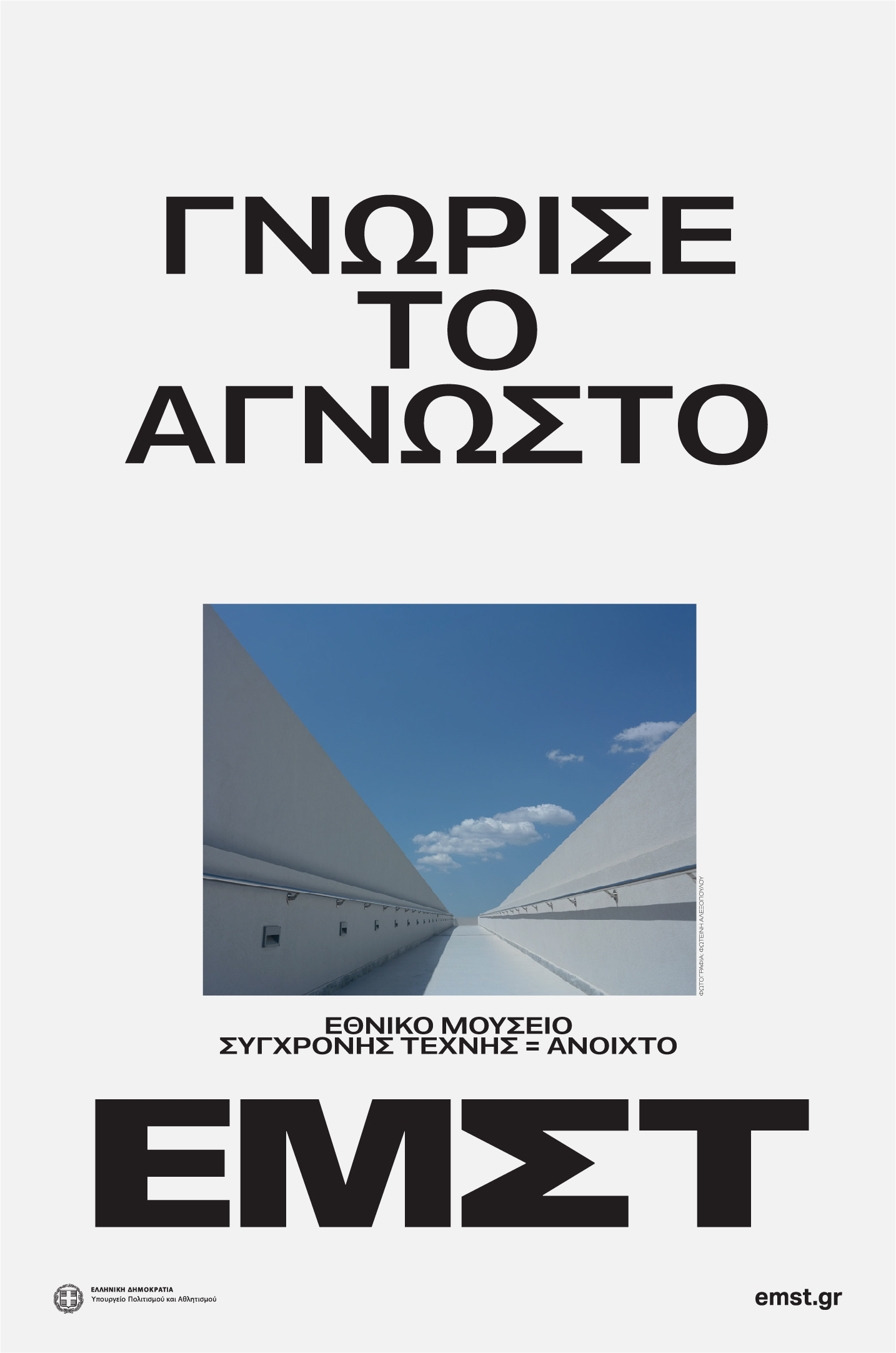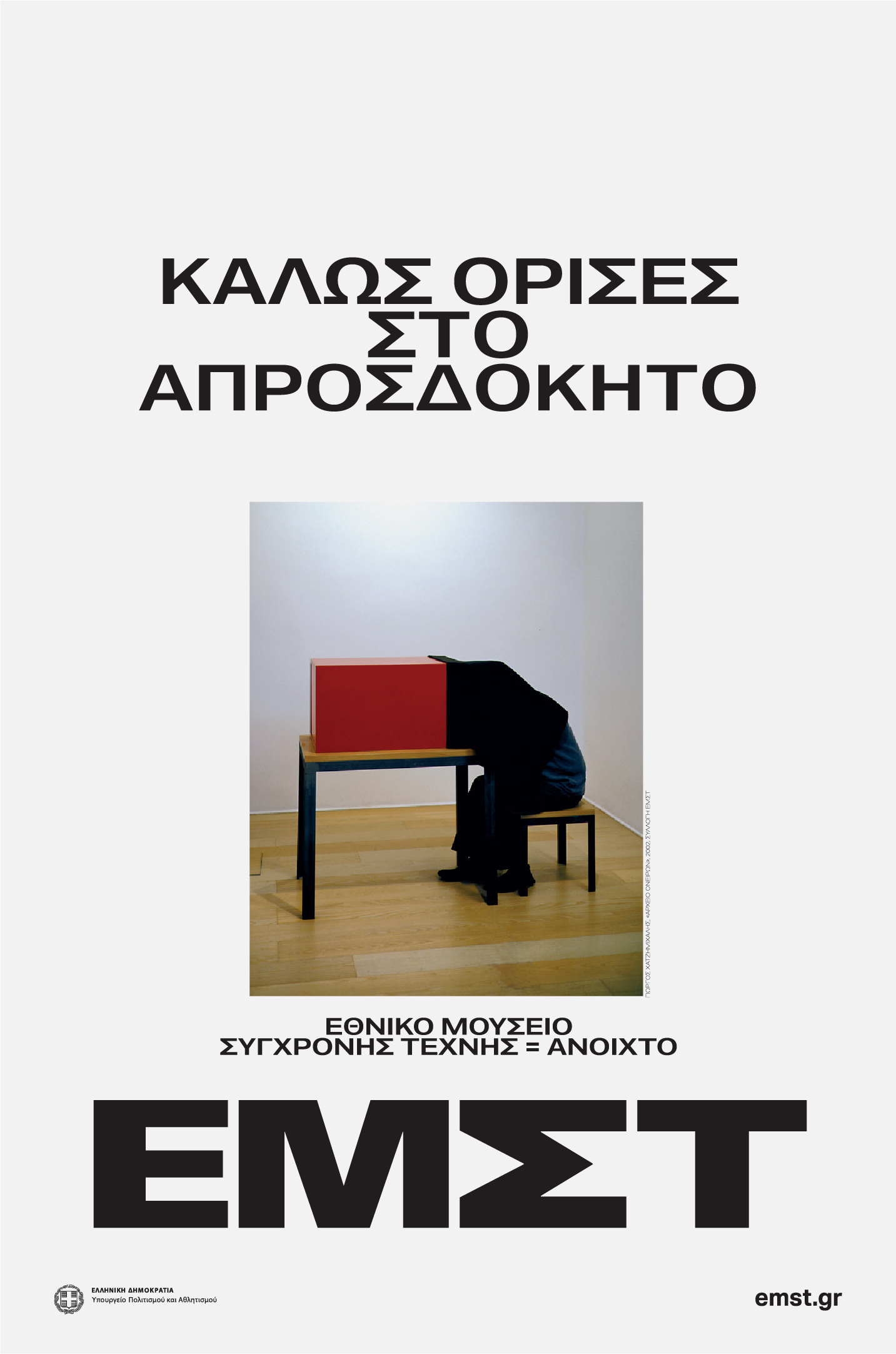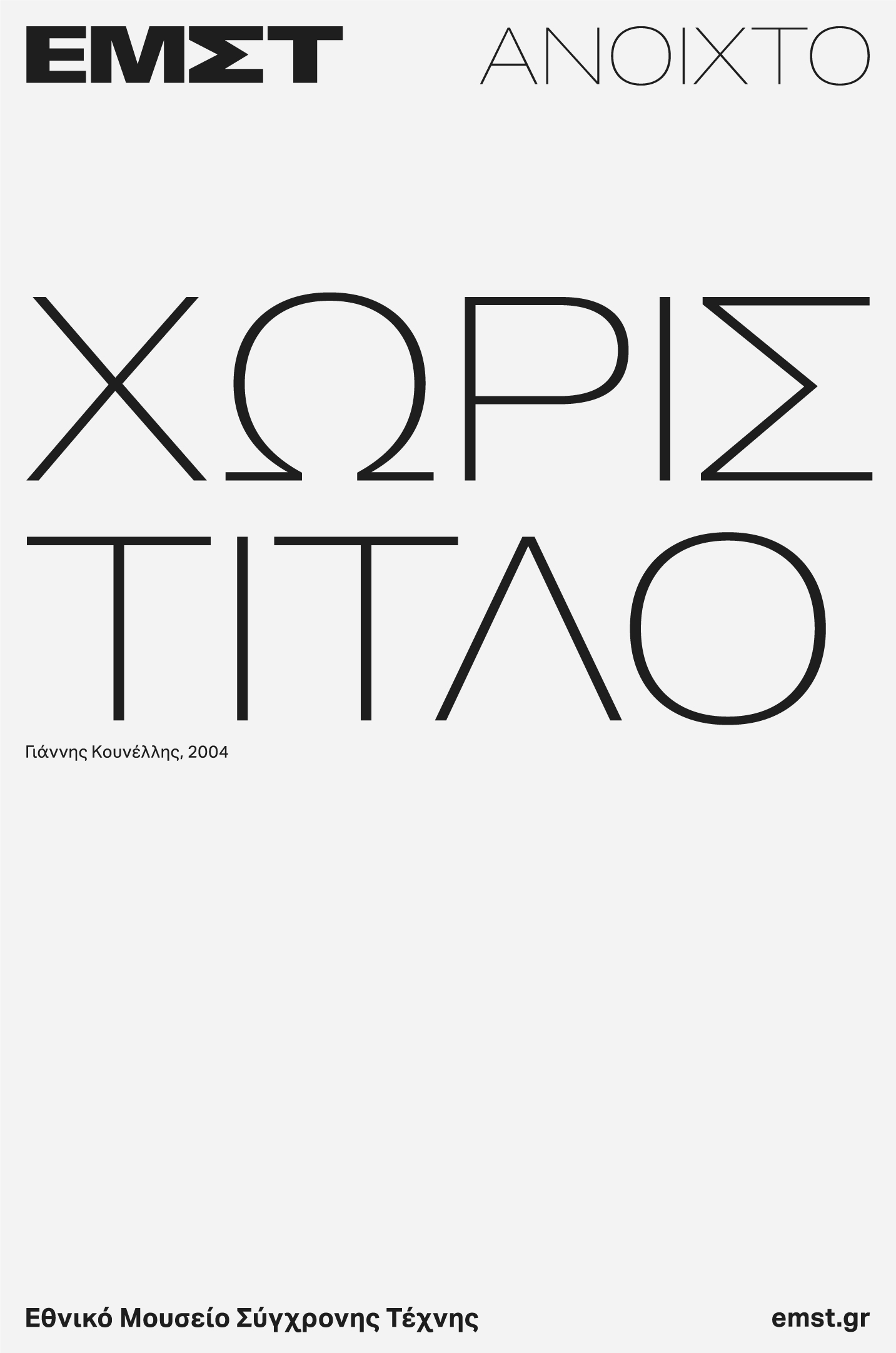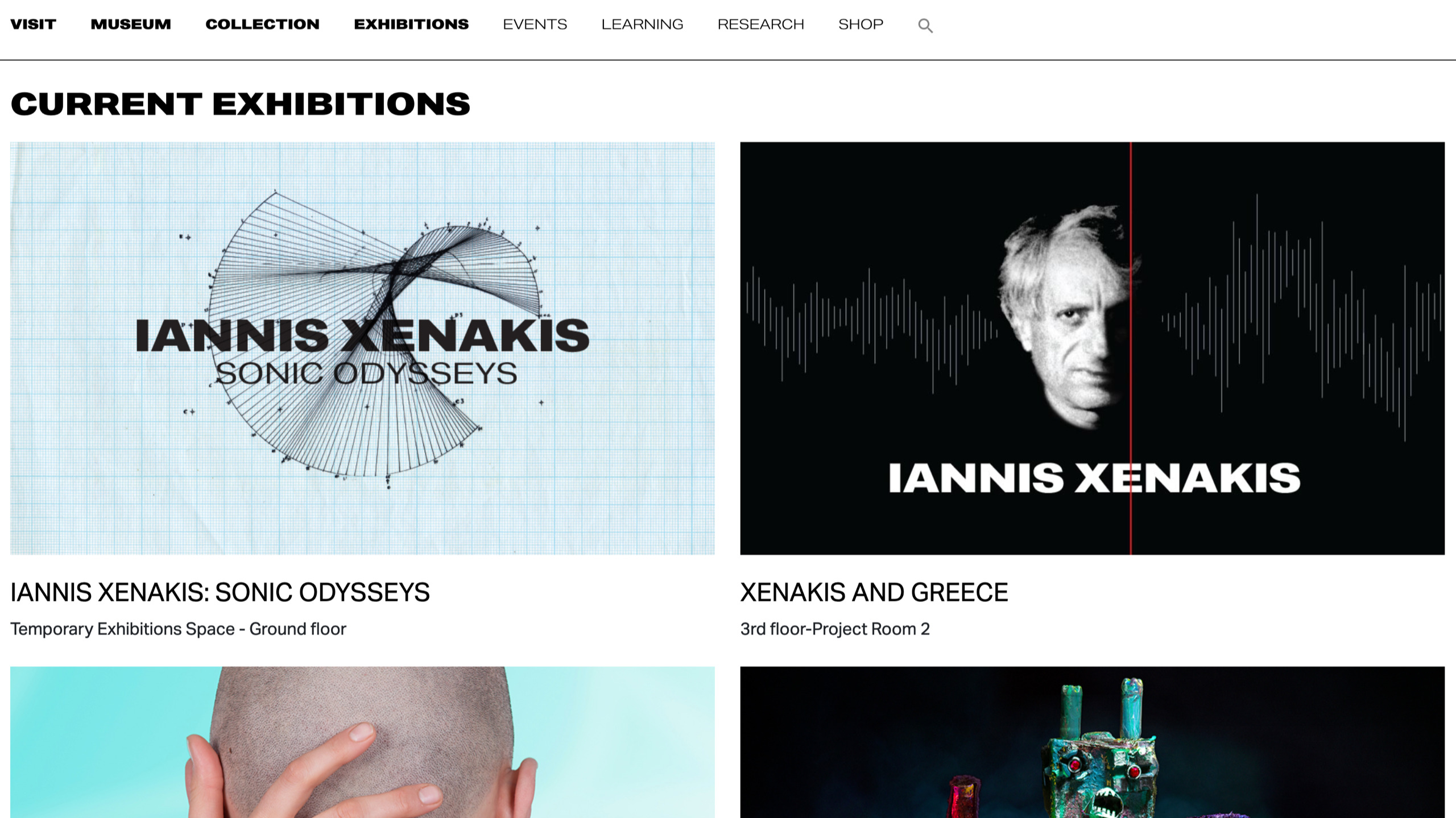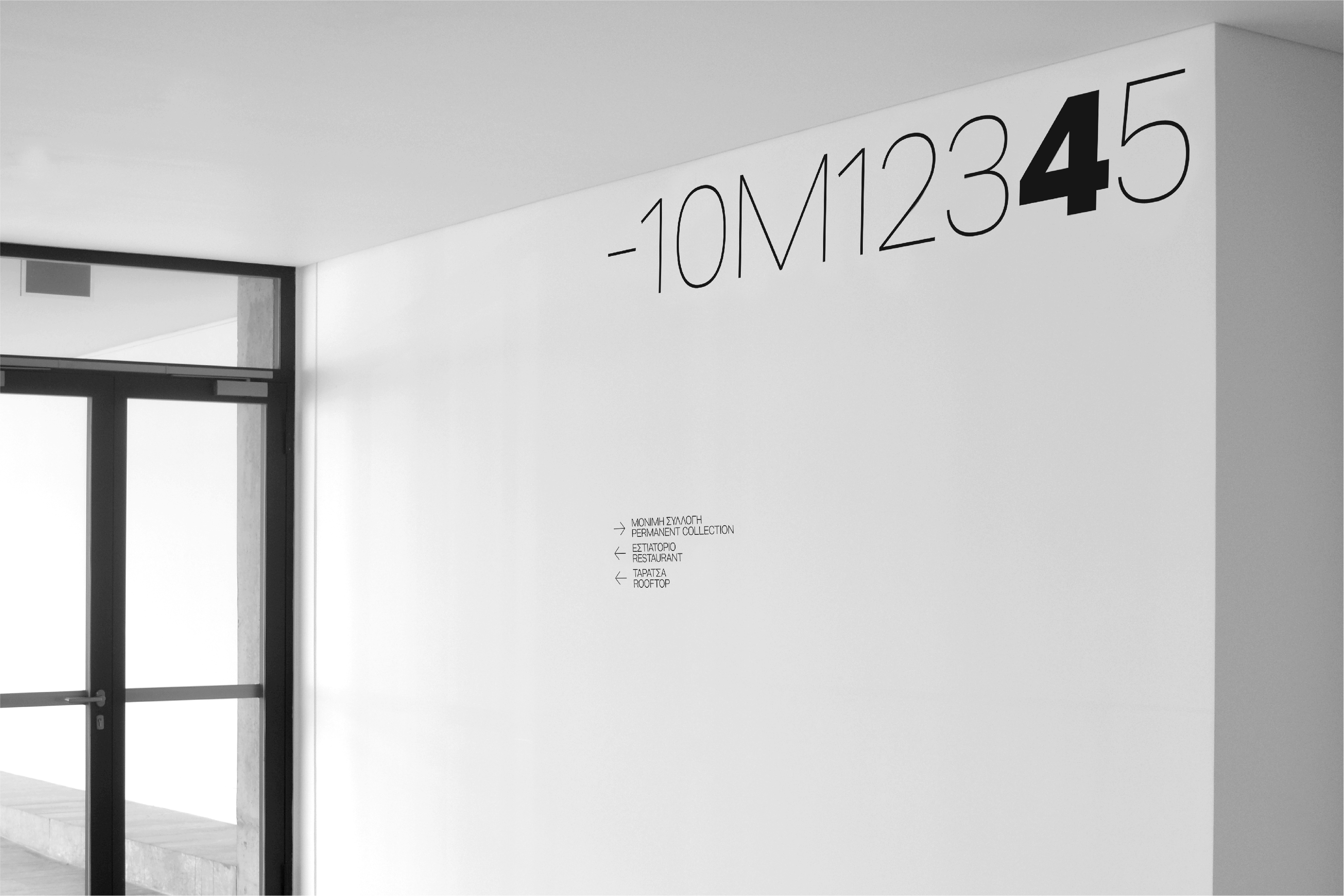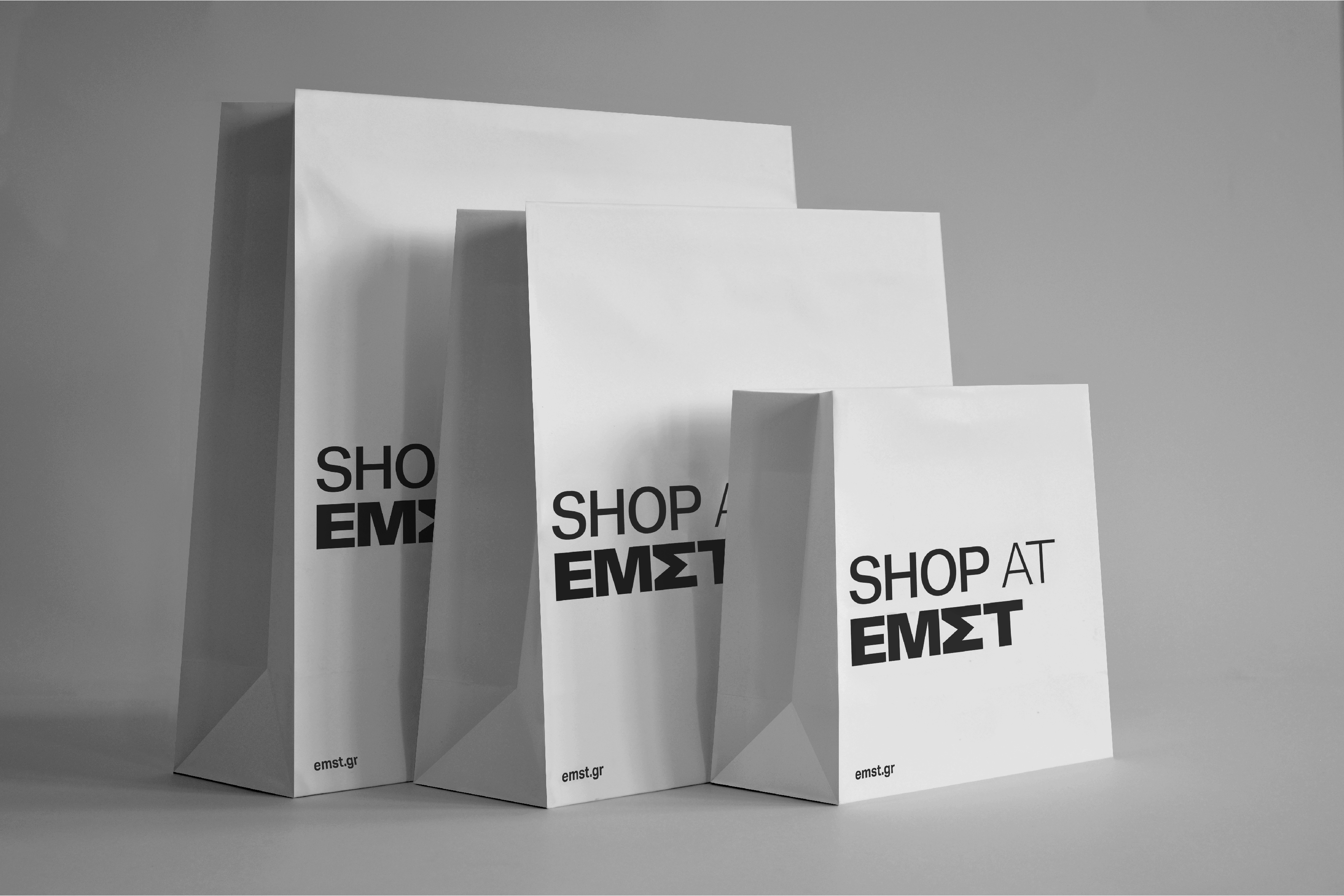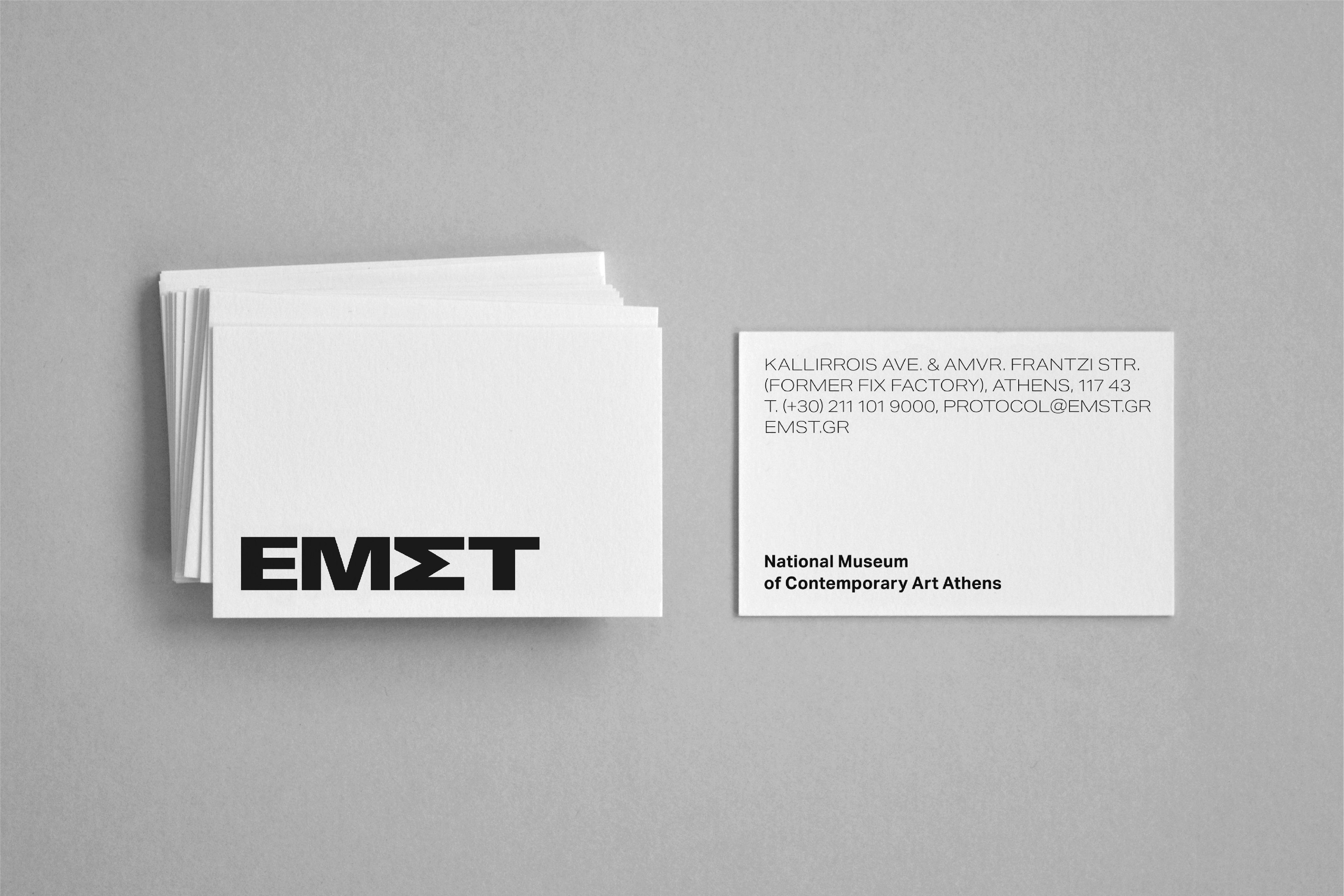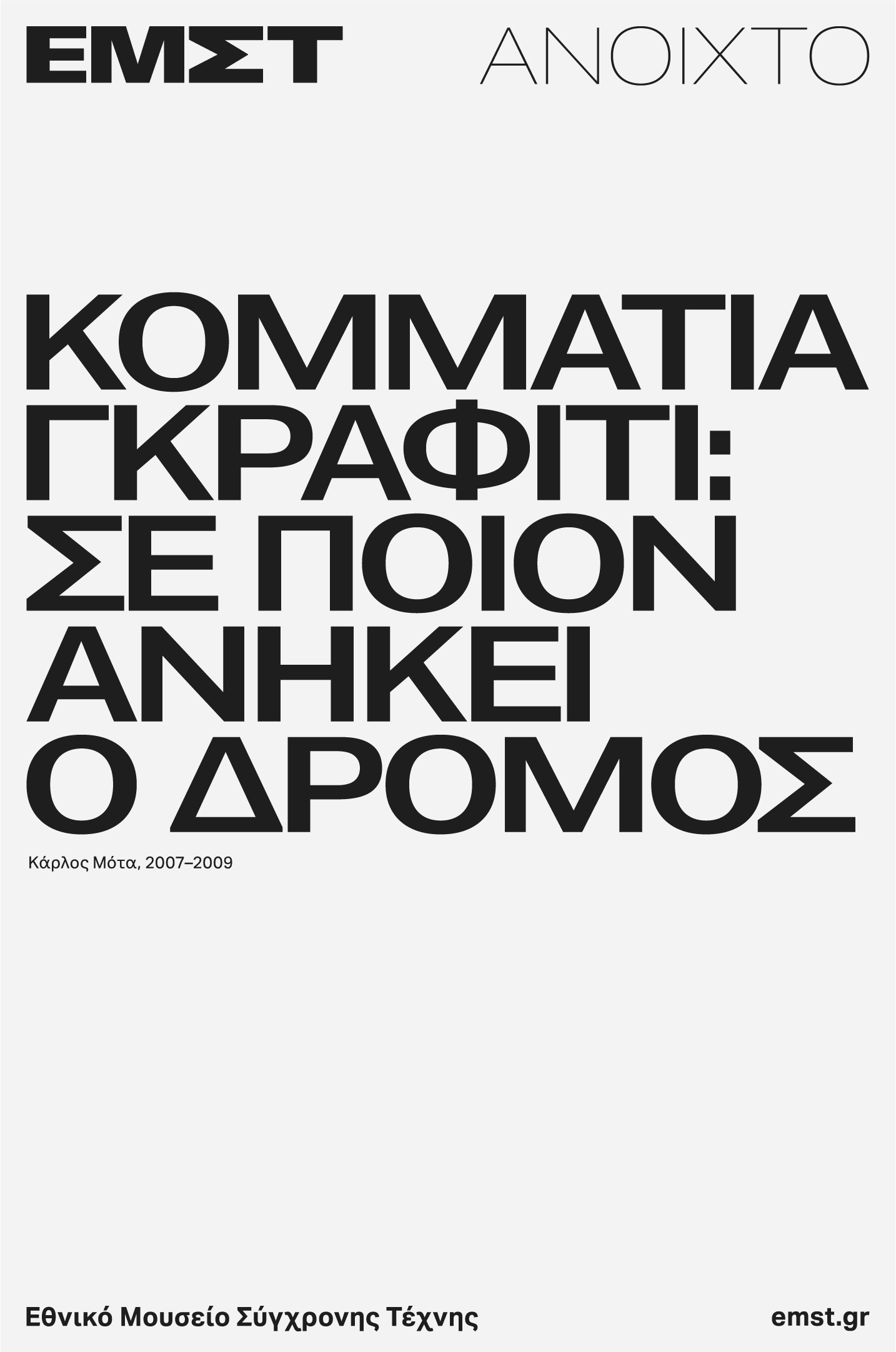
EMST Sans
A Font Modification for EMST
EMST Sans
A Font Modification for EMST
During EMST’s rebrand, design studio MNP sought a typeface to match the horizontal emphasis of its new logo. We modified Aktiv Grotesk to expand its width, increase contrast, and reshape key letters to echo the logo and capture the museum’s modern personality.
EMST Sans, Font Modification, 2019